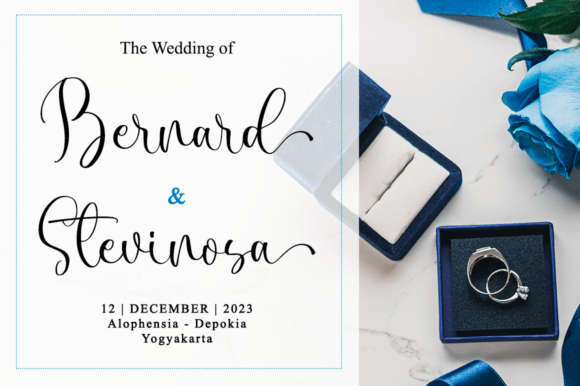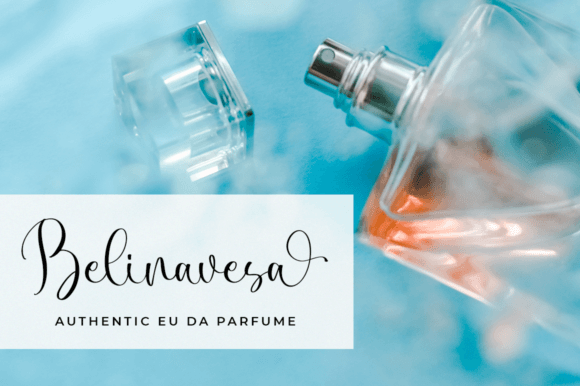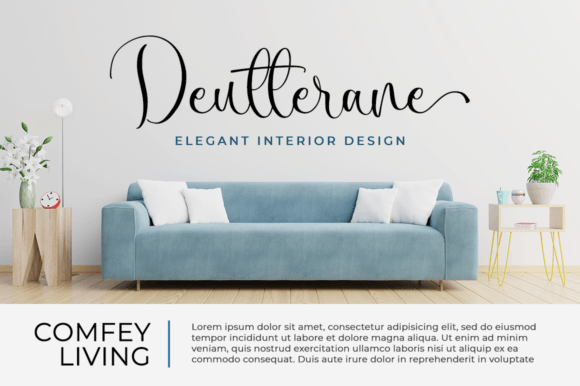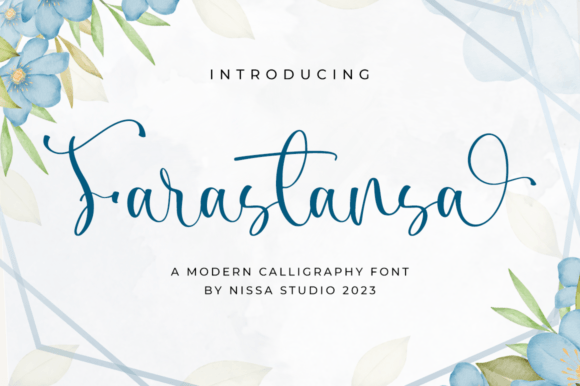
Introduction to Farastansa Font
Farastansa is a beautiful script font.
Its refined style will give an elegant and modern look to any of your creative projects such as logos, branding, invitations, stationery, wedding designs, social media posts, and many more This font is PUA encoded which means you can access all the glyphs and ligatures with ease.
Farastansa Font offers exceptional quality and versatility, making it a valuable addition to your design toolkit. Whether you’re creating for personal projects or commercial use, Farastansa Font delivers professional results.